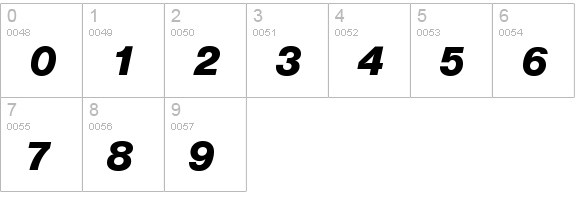
Olympia-ExtraBoldIta Font Details
Olympia-ExtraBoldIta font exudes boldness and elegance with its distinctive italicized design. The strong and dynamic strokes of this typeface make it perfect for headlines, titles, and branding materials that demand attention. The sleek curves and sharp angles create a modern and sophisticated look that captivates the eye. What makes Olympia-ExtraBoldIta even more appealing is that it is available for free download at FontsMarket.com. This means you can easily access this premium font without any cost, making it a valuable addition to your design toolkit. Whether you're working on a professional project or a personal creation, Olympia-ExtraBoldIta offers versatility and style that will enhance any design. Download this font today and elevate your typography game to new heights!